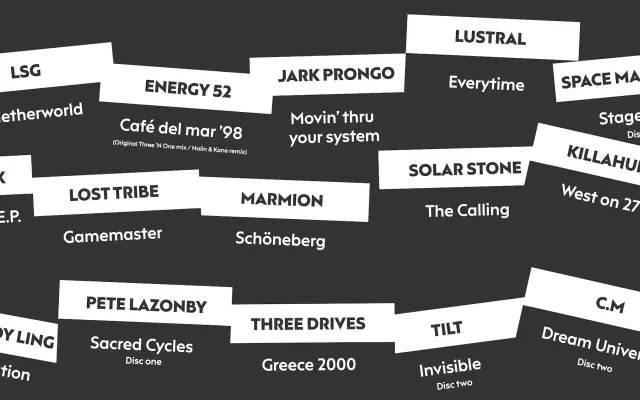
F37 Hooj
A geometric sans that tips its hat to Futura, Erbar and Kabel, then names itself after the Hooj Choons house label.
A geometric sans by Rick Banks that openly references Paul Renner's Futura along with Erbar, Kabel and Super Grotesk. Fourteen styles run from Thin to Black with matching italics, and a companion Arabic extends the system. The name nods to the 1990s house label Hooj Choons, and F37 frame the family around club records and Mediterranean nightlife. Suits identity for music, hospitality, fashion and editorial design that wants a clean Bauhaus-era geometry.
F37 describe Hooj as a shameless tribute to Paul Renner's Futura and the wider family of German geometric sans like Erbar, Kabel and Super Grotesk. Reference points include 1990s house label Hooj Choons, with sample lines like 'Cafe del Mar' and 'Three Drives - Greece 2000'.